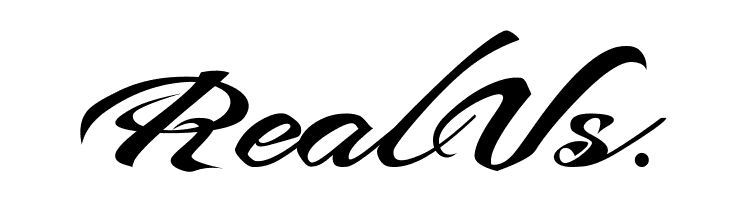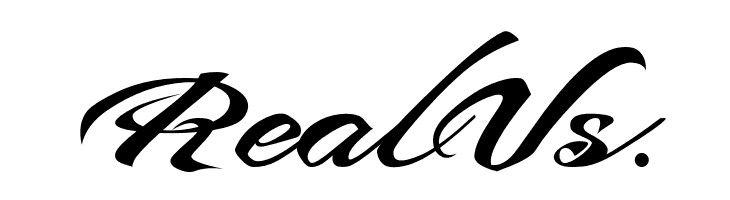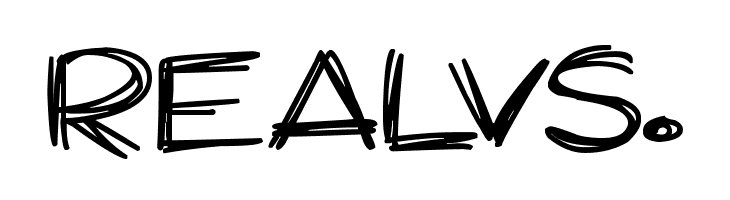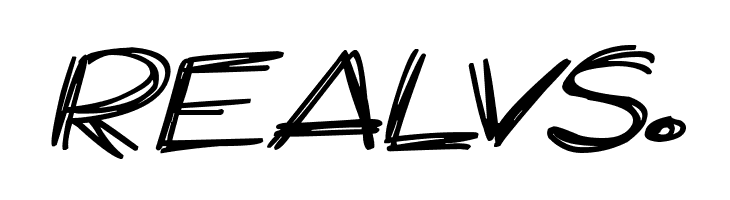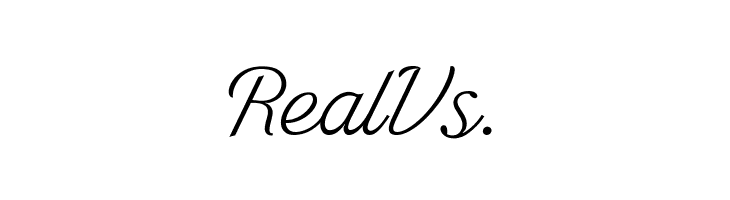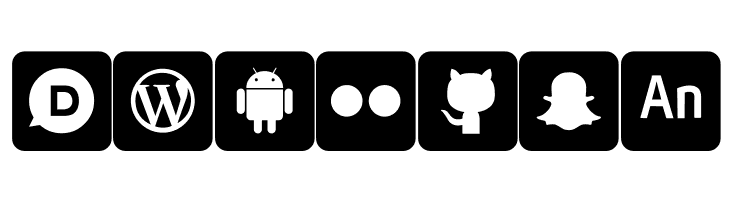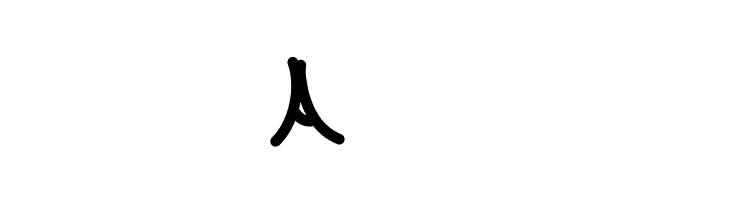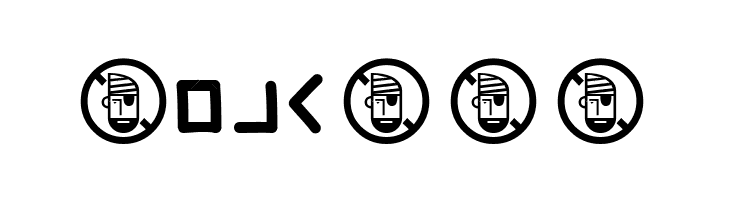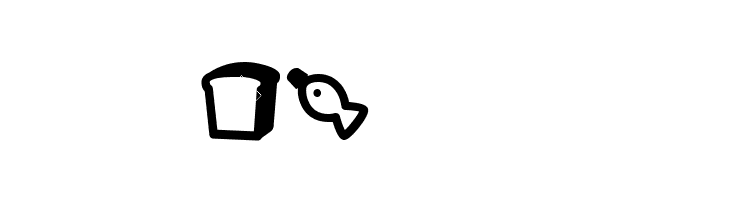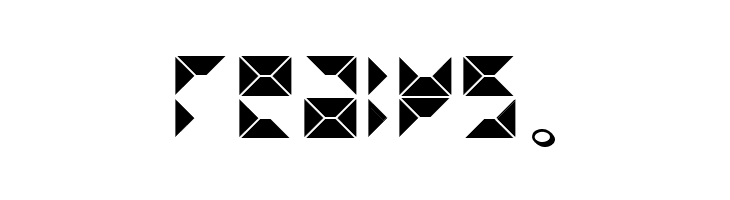
CandlescriptDemoVersion Font
An elegant, high-contrast script font with flowing, ornate swashes.
Devil East Free Font
Font by fey design
A sophisticated, flowing script font with elegant loops and high contrast.
DevilEastFree Font
Font by fey design
A bold, dynamic script font with elegant, flowing cursive letterforms.
font social media Font
Icon set with bold, high-contrast social media and tech logos.
HotDogsNFishDingbats Font
Font by
danny91194
Bold, cartoonish food-themed dingbat icons.
HotDogsNFishNormal Font
Font by
danny91194
A bold, modern sans-serif font with clean lines and consistent proportions.
HotPotato Bold Font
Font by
danny91194
Bold, playful font with stars inside circles.
Hygiene Things Font
Font by
danny91194
A hygiene-themed pictogram display font using grooming icons as characters.
Imaginer Font
Font by
danny91194
A playful, dotted font with a unique and artistic style.
Shine Font
Font by
danny91194
A decorative font made of star shapes, perfect for playful designs.
Sighpher Bold Font
Font by
danny91194
A bold, futuristic font with geometric shapes and a digital aesthetic.
Silky Smooth Font
A bold, flowing script font with a modern, energetic style.
Silky Smooth Italic Font
A bold, italic script font with smooth, connected strokes and a dynamic style.
Standing Ovation Font
Font by
danny91194
A playful, casual handwritten font with dynamic strokes and an informal style.
triangule Font
Font by
danny91194
A geometric, triangular font with a bold and futuristic design.
White Larch PERSONAL USE ONLY Font
Font by Måns Grebäck
A graceful script font with flowing, connected strokes and a sophisticated style.
Widescratch Font
A bold, hand-drawn font with a scratchy, dynamic style.
Widescratch Italic Font
A dynamic, hand-drawn italic font with a scratchy texture.